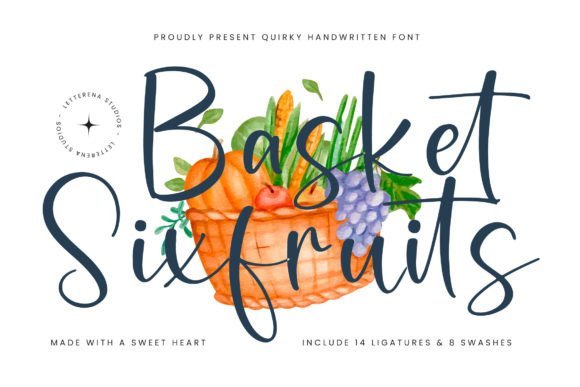
Basket Sixfruits Font: Adding Whimsy to Your Creative Projects
There’s something magical about discovering a font that perfectly captures the essence of your brand’s personality. For designers, it’s a moment that can make all the difference between a project that’s just okay and one that truly shines. That’s exactly what happens when you stumble upon the Basket Sixfruits Font, a Luxury Script font from Letterena that’s designed to add a touch of whimsy and elegance to your work.
Basket Sixfruits Font is more than just a pretty face – it’s a versatile tool that can be used in a wide range of projects, from logos and branding to homeware designs and product packaging. Its unique, handwritten feel makes it perfect for adding a personal touch to your work, and its luxury script style ensures that it’s always on-trend. Whether you’re a seasoned designer or just starting out, the Basket Sixfruits Font is a valuable addition to your toolkit.
- Unique Characteristics: Basket Sixfruits Font features a unique blend of modern and traditional design elements, with intricate details and ornate flourishes, making it perfect for creating visually striking designs.
Basket Sixfruits Font Review
I recently had the chance to work with the Basket Sixfruits Font, and here’s my honest review.
- The font’s playful, whimsical feel is perfect for creating eye-catching designs that stand out.
- The numerous fruit-inspired characters add a unique touch to your projects.
- The font is highly customizable, allowing you to adjust the size, color, and spacing to suit your needs.
- The font may be overwhelming for projects that require a more serious or professional tone.
- The character set is limited, which might cause issues for designers working on projects that require a wide range of characters.
- The font may not be suitable for small text sizes due to its playful and decorative nature.
Overall, I’d say the Basket Sixfruits Font is a great choice for designers looking to add a touch of whimsy to their projects. While it may not be suitable for every project, it’s perfect for creating eye-catching designs that are sure to grab attention.
Tips for Getting the Most Out of Basket Sixfruits Font
Use Basket Sixfruits Font to add a playful and modern touch to your designs. It pairs well with bold colors and geometric shapes. Experiment with different font sizes and styles to create visual interest.
Basket Sixfruits Font is suitable for:
- Children’s products and packaging